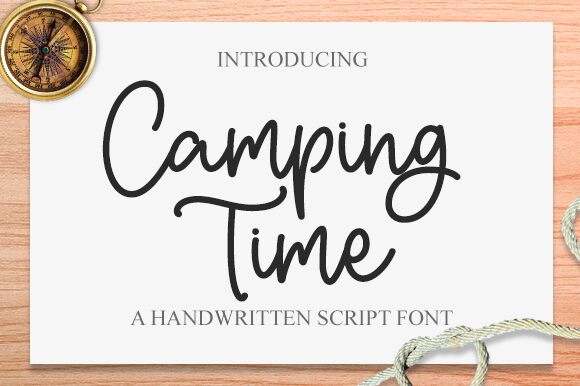
Aldi Raya Pradipta's Camping Time is a light, handwritten script font that brings a personal touch to any project. Its playful and natural feel makes it perfect for greeting cards, invitations, stationery, logos, titles and more.